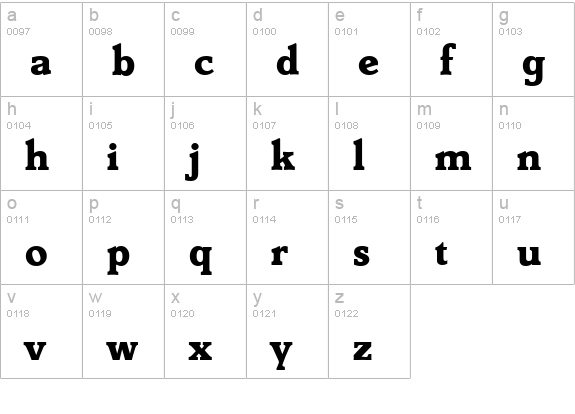
DerringerSerial-Xbold-Regular is the standard, neutral variant in the DerringerSerial typeface family \xE2\x80\x94 well suited to general body text, paragraphs, and standard typographic work.
DerringerSerial-Xbold-Regular font is a bold and striking typeface that exudes confidence and modernity. With its clean lines and strong presence, this font is perfect for making a statement in your designs. Its bold weight commands attention and adds a touch of sophistication to any project. What makes DerringerSerial-Xbold-Regular font even more appealing is that it is available for free download at FontsMarket.com. You can easily access this stylish font and enhance your creative work without any cost. Don't miss out on the opportunity to elevate your designs with this classy and impactful typeface. Download DerringerSerial-Xbold-Regular font today and make a bold statement in your projects.